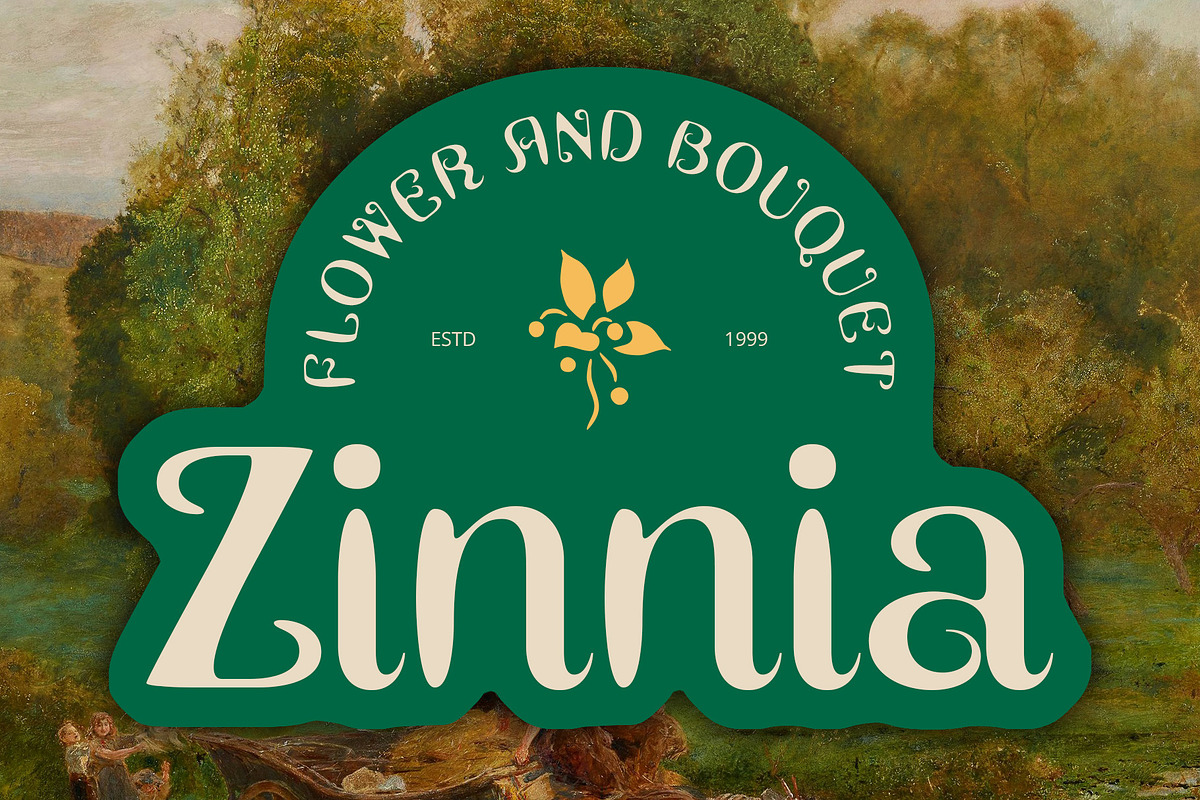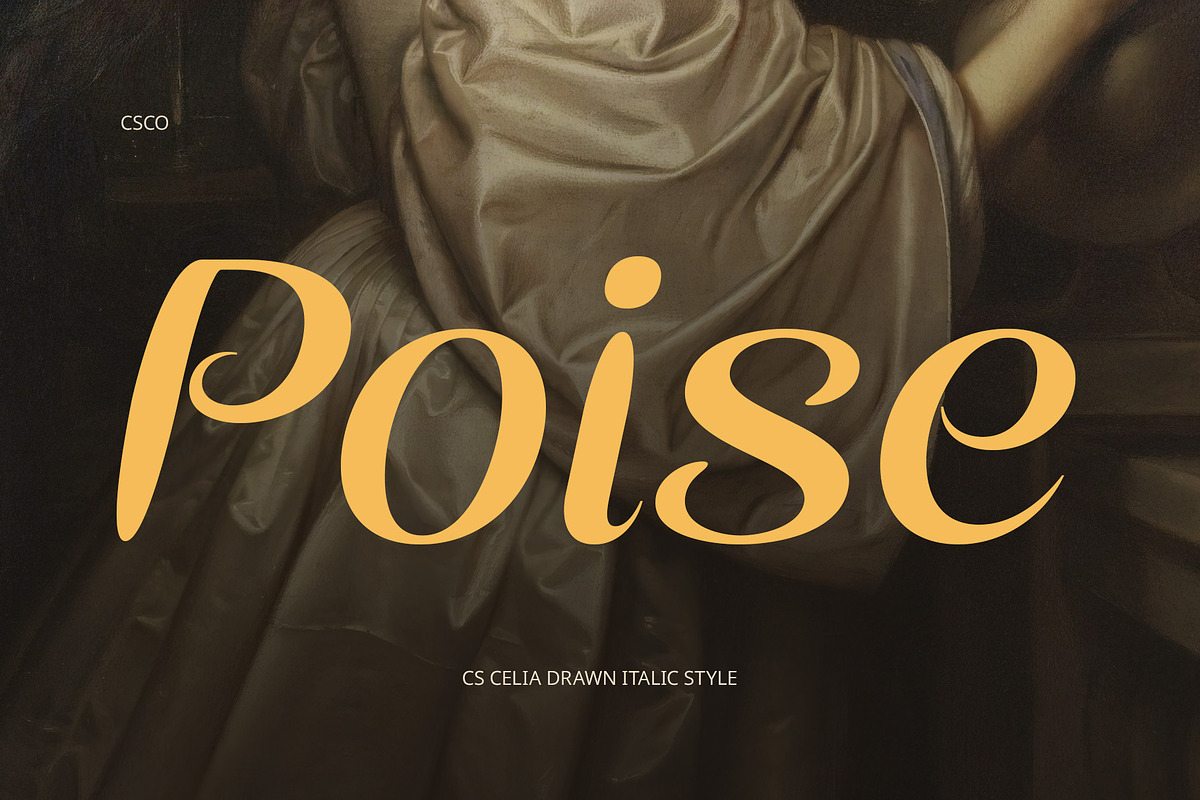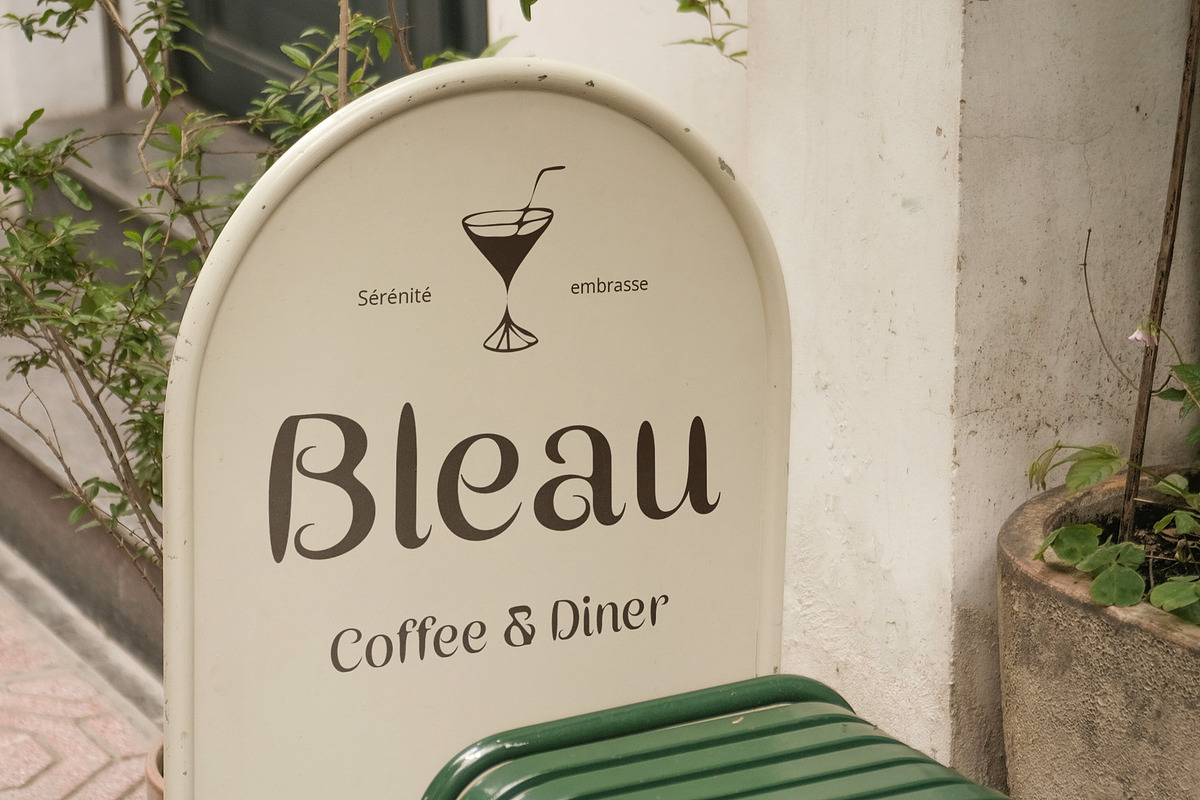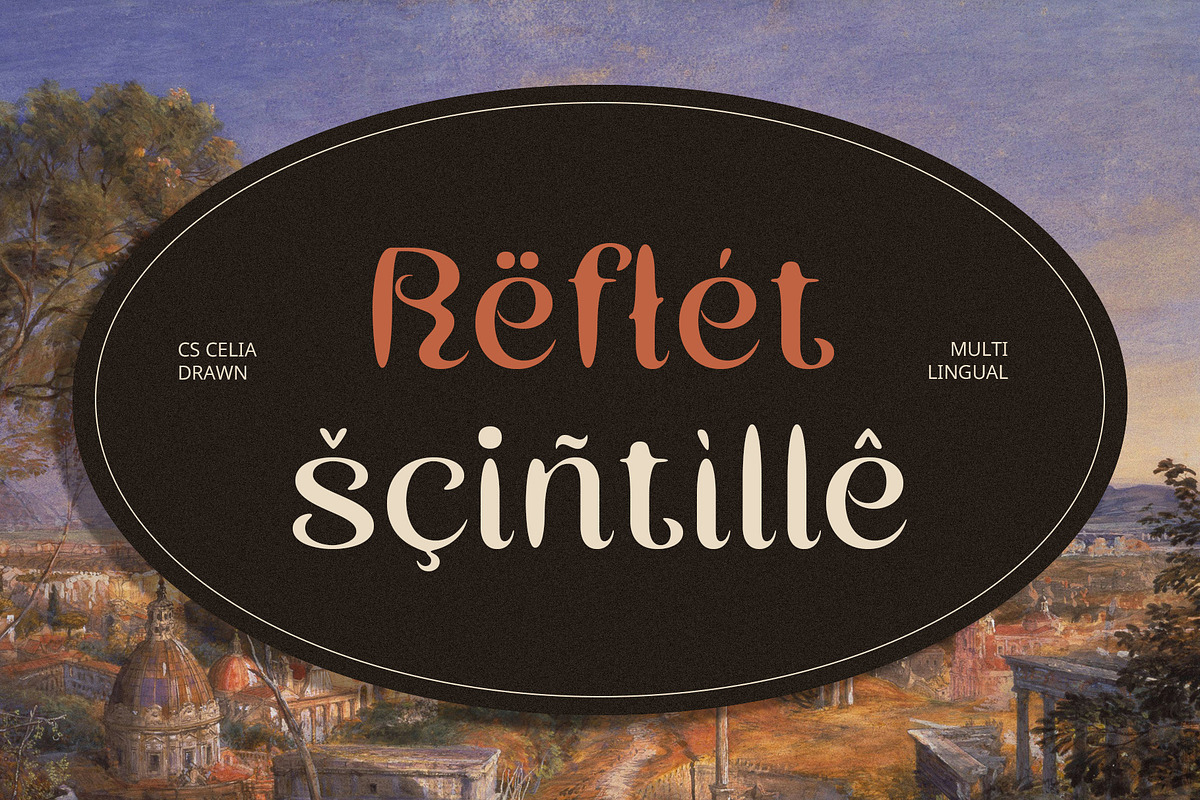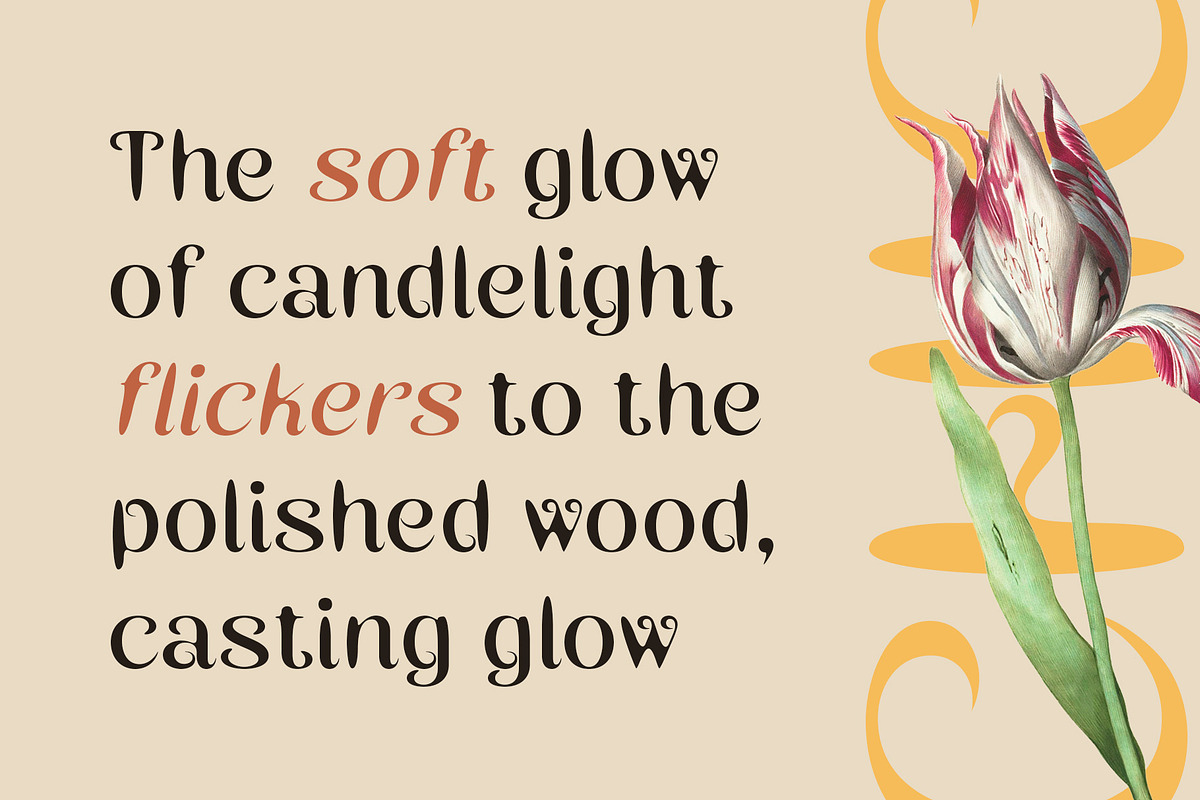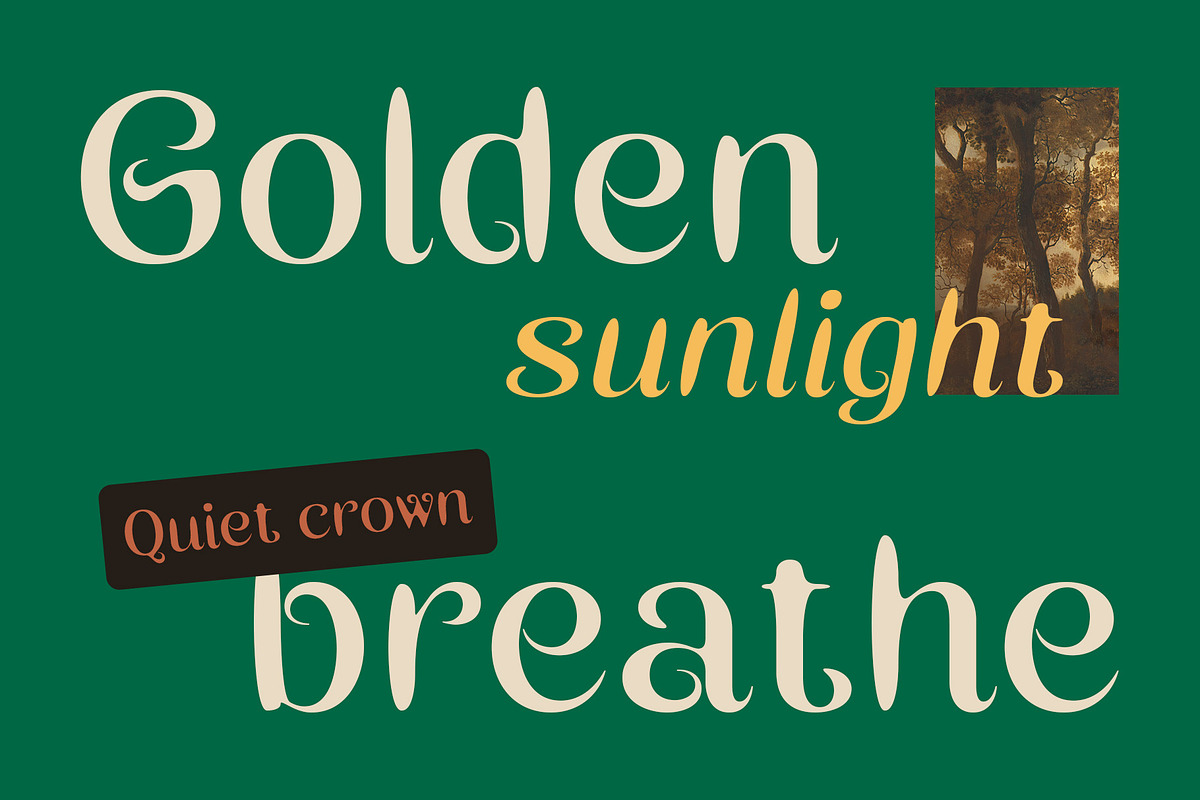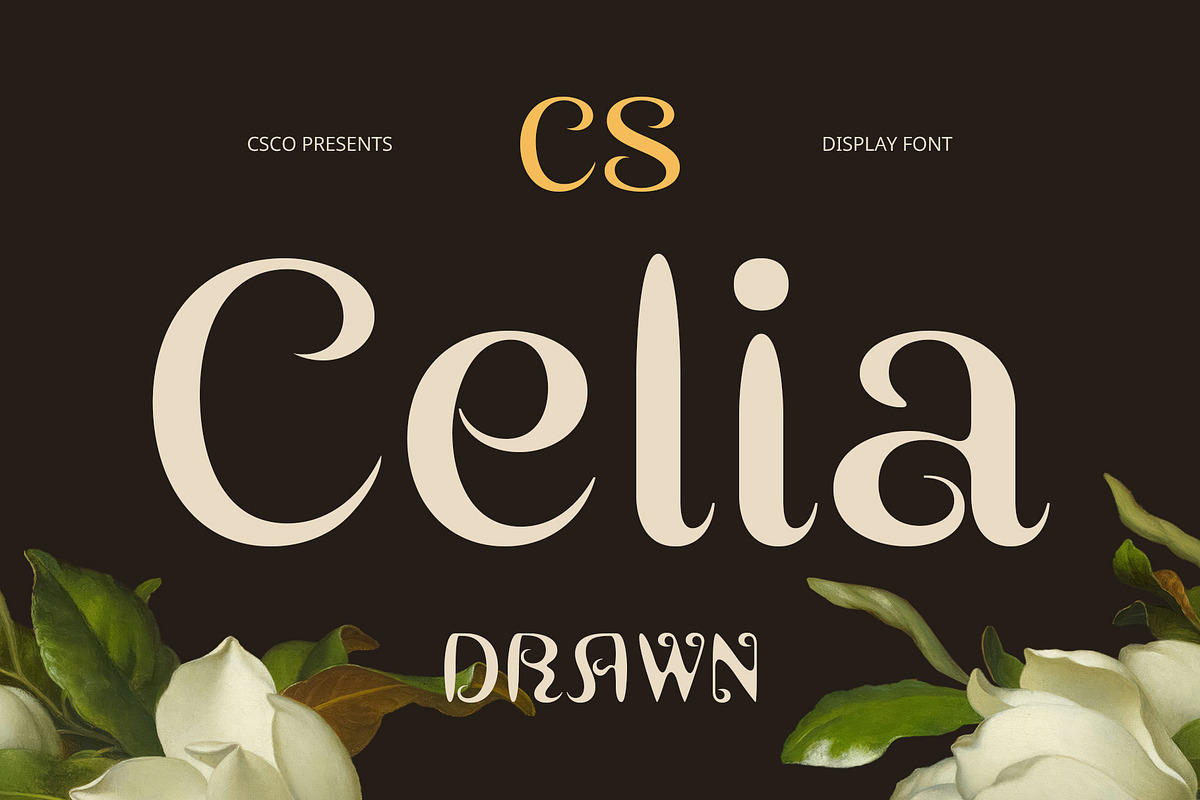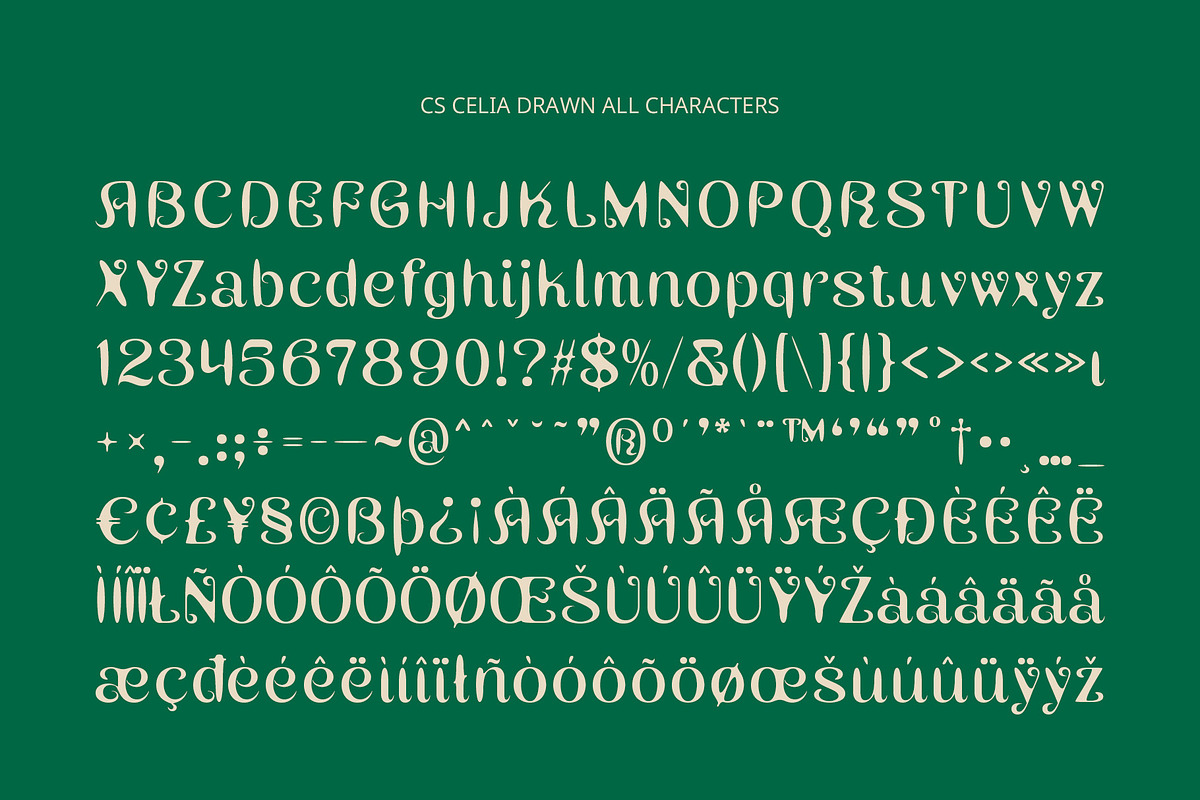
CS Celia Drawn
CS Celia Drawn: Where Art Nouveau Elegance Meets Handcrafted Expression
Elegant Modern Sans Serif with Artistic Heritage CS Celia Drawn is a modern display sans-serif font inspired by the graceful curves and decorative aesthetics of the Art Nouveau era. Its letterforms are clean yet full of artistic flair, blending symmetry with fluid motion to create a look that feels timelessly elegant. The design balances sophistication with approachability, making it perfect for high-end and creative applications alike.
Drawn Effect for Subtle Handcrafted Detail A defining feature of this artistic font is its delicate drawn effect, which introduces a soft, handcrafted texture to each character. This subtle imperfection adds warmth and personality, transforming the font from a purely digital design into something that feels organic and expressive.
Feminine, Refined, and Expressive Appeal With its flowing curves and decorative structure, this expressive font communicates a distinctly feminine and graceful tone. The font is visually striking without being overwhelming—making it a versatile choice for projects that want to radiate charm, elegance, and emotional depth.
Perfect for Sophisticated and Creative Design Needs Whether used in luxury packaging, boutique logos, expressive typography posters, or artistic editorial headlines, this feminine font elevates your visual identity with a refined yet creative edge. It stands out while remaining tastefully understated, offering a unique blend of modern design and decorative heritage.